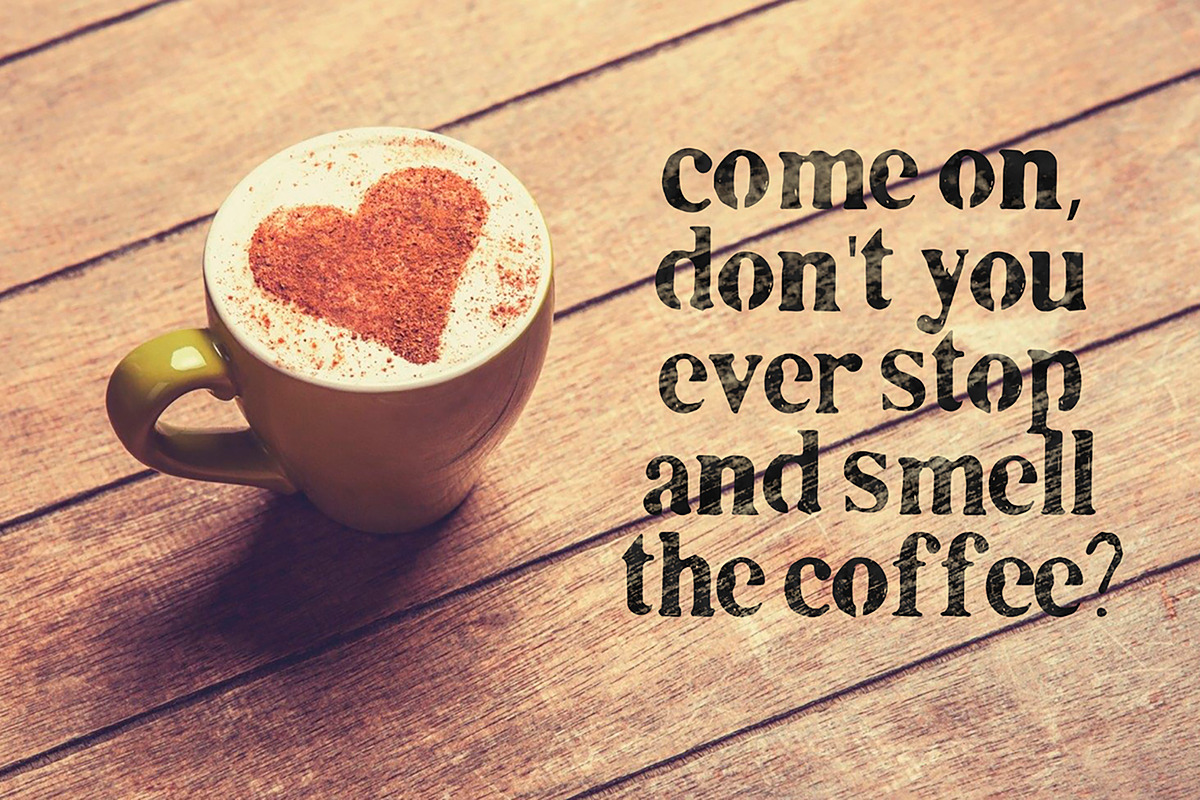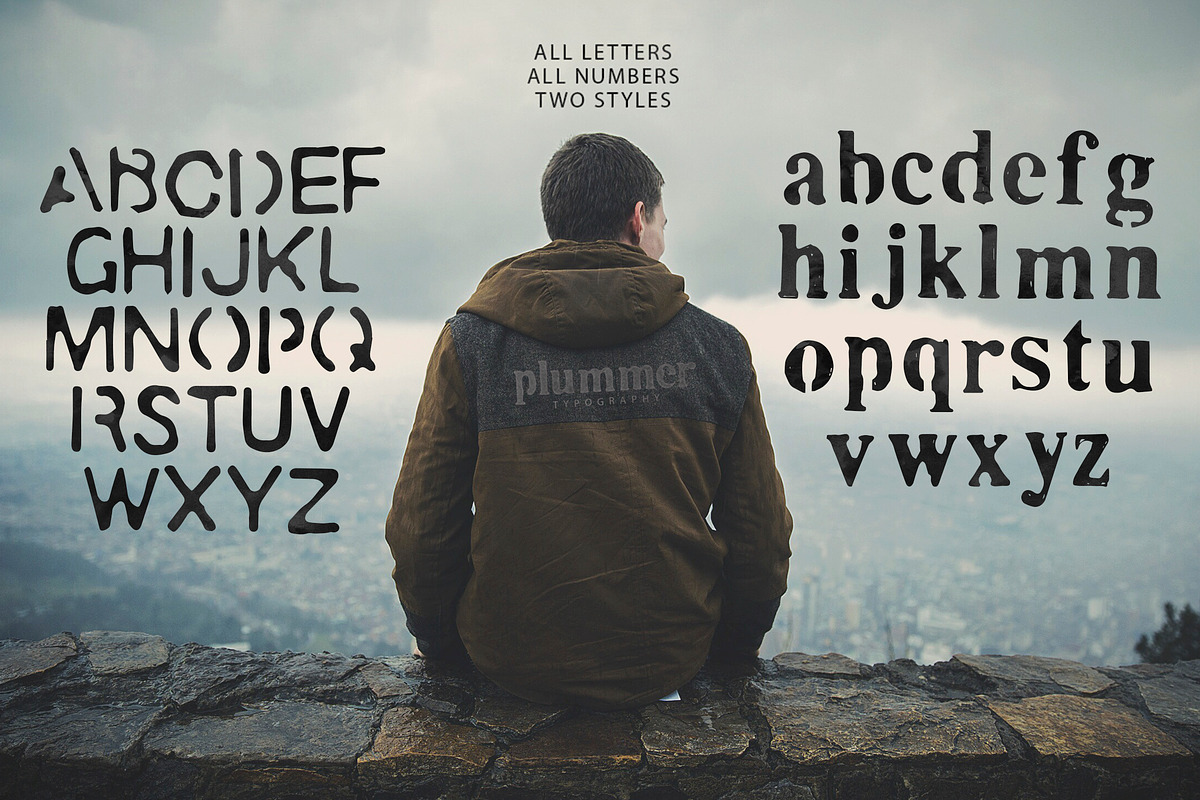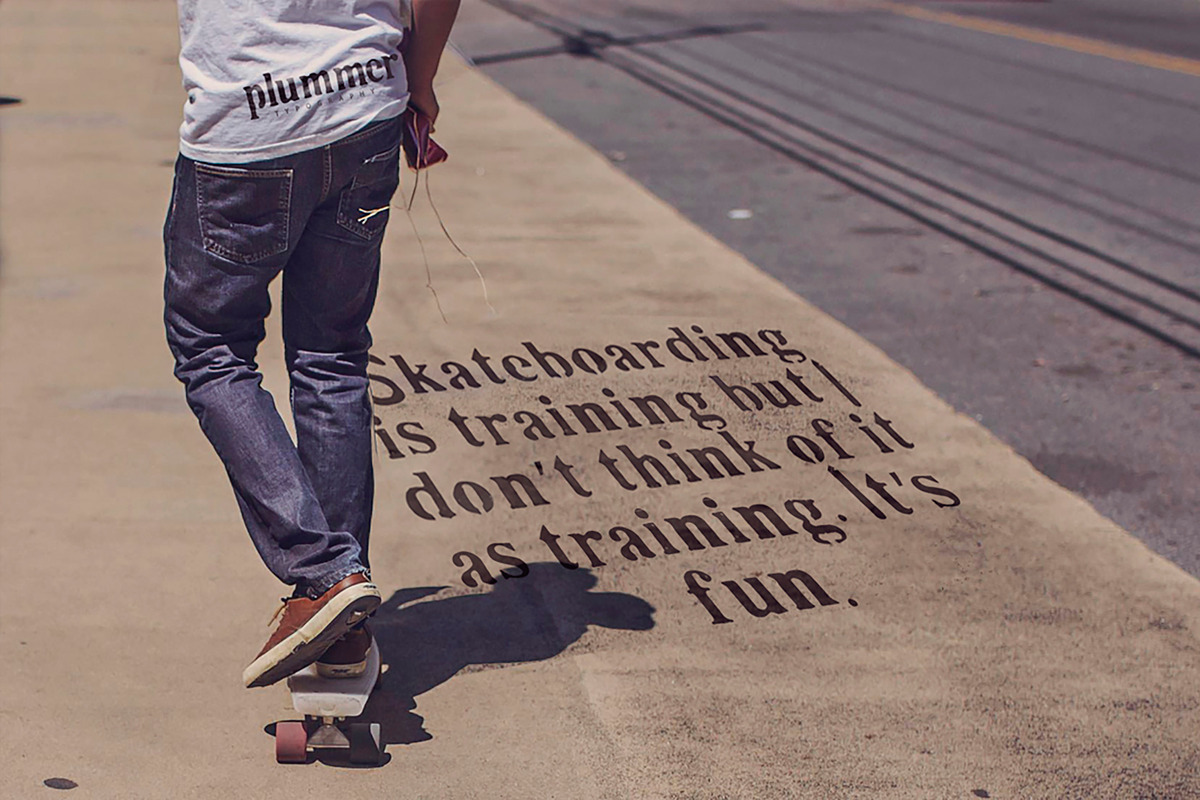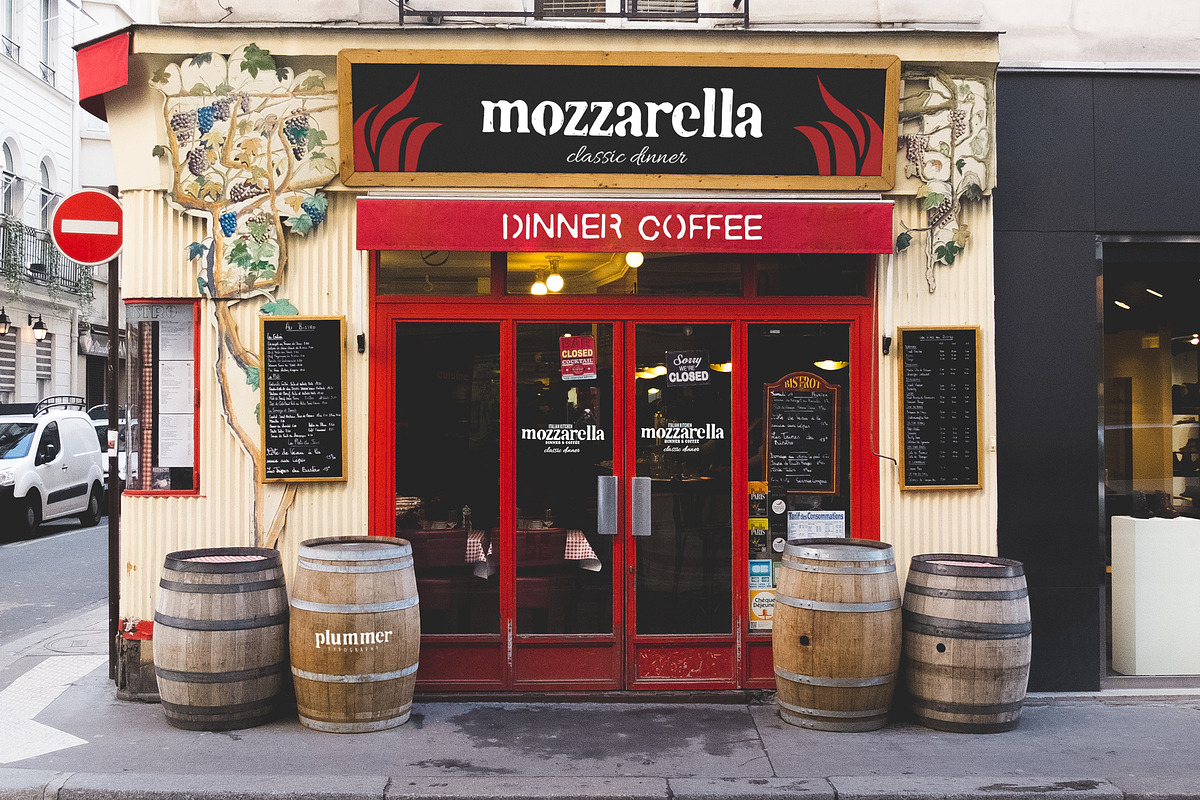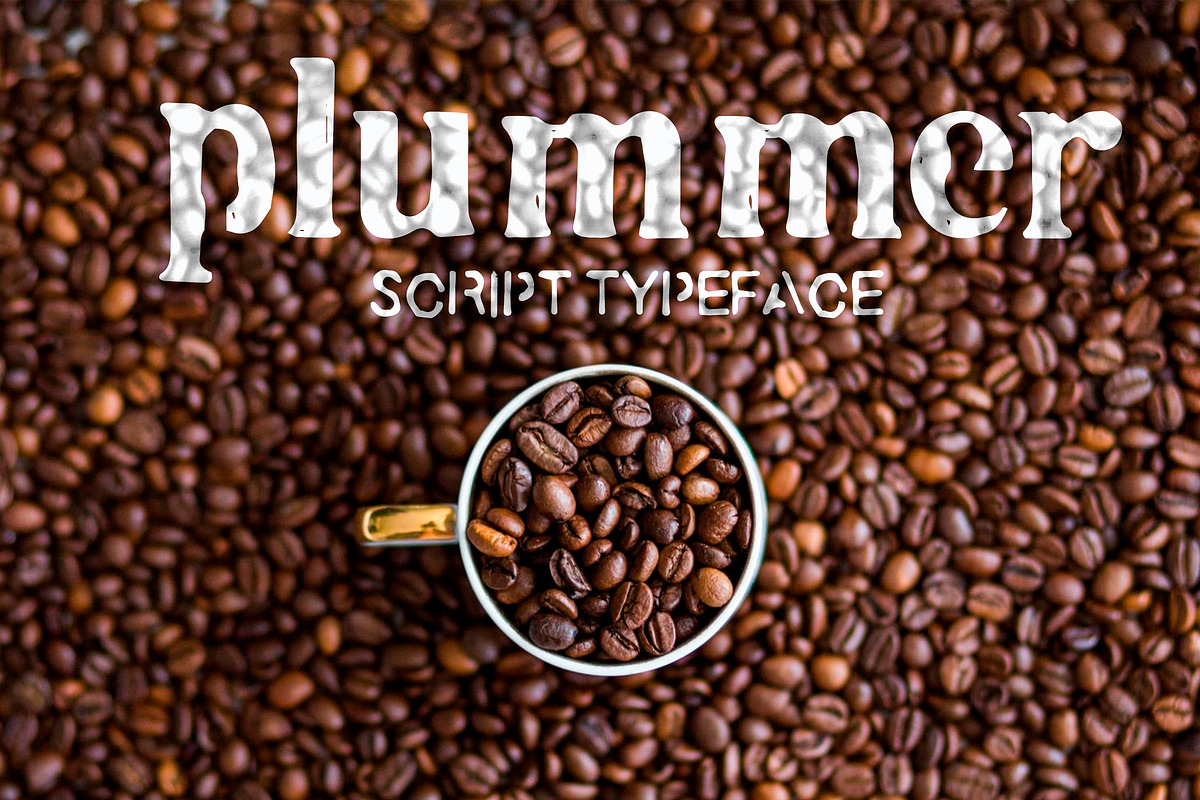
Plummer Script Typeface
Plummer is a handmade font inspired by stencil uppercase. Perfect for retro designs.
Lowercase and uppercase, numbers and webfont.
- Plummer is a handmade font inspired by stencil uppercase.
- Lowercase and uppercase, numbers and webfont.